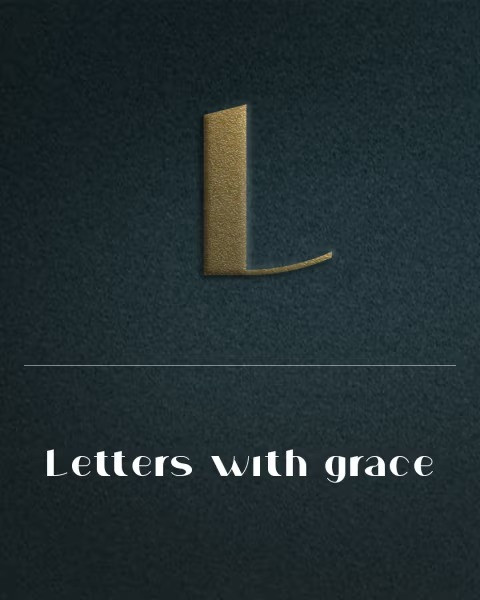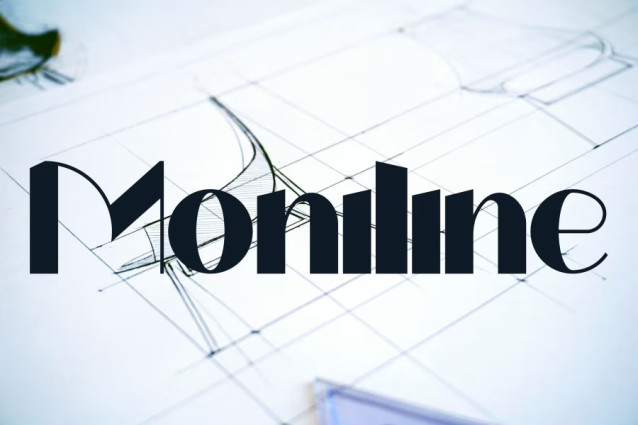
Moniline Font
Moniline Font Experience elegance with luxury typeface, crafted for sophistication and timeless design. Perfect for premium branding, editorial projects, and high-end identities, elevating every word with style, refinement, and unmatched visual presence.